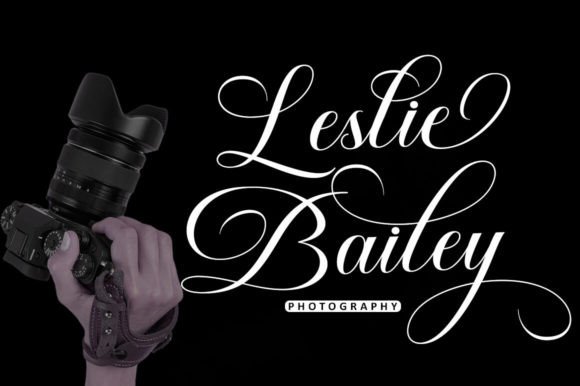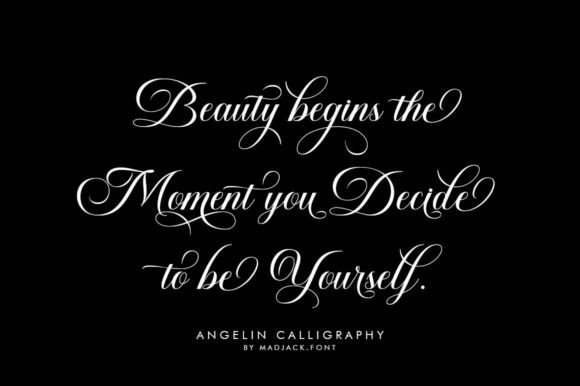
Angelin Calligraphy Font
Angelin Calligraphy is a modern script font that features a classic and elegant touch.
Angelin Calligraphy is attractive because it is sleek, clean, feminine, sensual, glamorous, simple, and very easy to read, thanks to the many luxurious letter connections. The classic style is very suitable to be applied in various formal forms such as invitations, labels, restaurant menus, logos, fashion, makeup, stationery, novels, magazines, books, greeting/wedding cards, packaging, labels, or all kinds of advertising purposes.